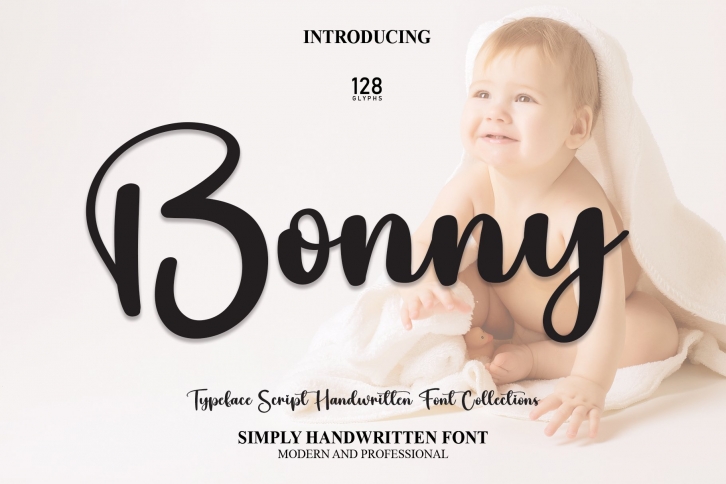
Bonny is a beautiful font that was designed by Scratchones. It's a great choice for designers and creatives who need such a font. It was released on September 12, 2022 and the file size is 14.92 MB. Bonny may give a more youthful, expressive and casual look to your project. It is a very beautiful, refined, elegant, and high-quality font.